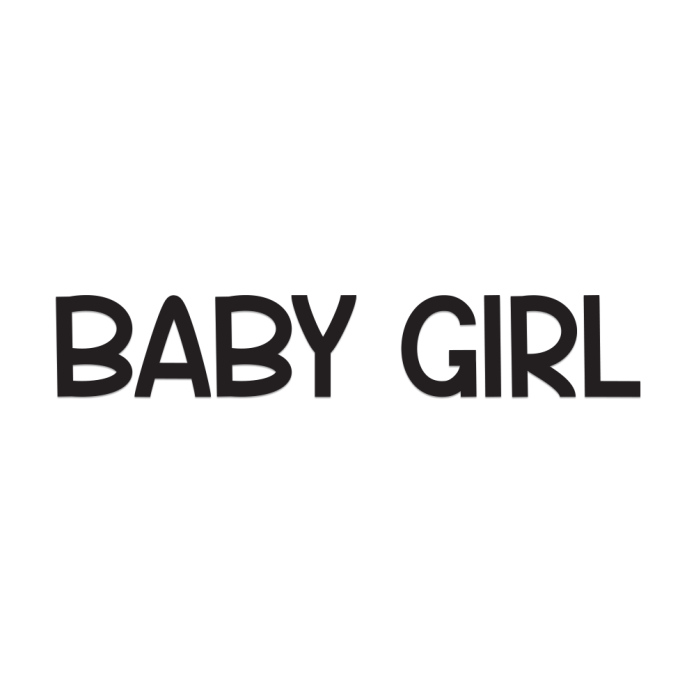
Baby Girl is a sweet and playful display font designed to bring joy and charm to your kid-themed projects. With soft curves and an adorable personality, this font is perfect for baby shower invitations, nursery prints, product packaging, children’s books, and more.
Let your designs giggle with cuteness!
Whimsical Display Typeface
Rounded, Friendly Letterforms
Ideal for Baby & Kids Themes
Uppercase & Lowercase Letters
Numbers & Punctuation
Multilingual Support
Add an extra dose of sweetness to your project with Baby Girl – a font that’s as lovable as its name.